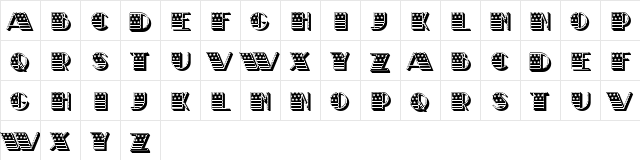
Funeral Regular
Design Context for Funeral Typeface
Funeral has an approachable, lighthearted character — its loose, expressive forms are well-suited to children's content, casual branding, and fun-first design.
Font Pairing: Pairs well with a rounded or humanist sans for body copy, maintaining the friendly tone without relying on Funeral to carry extended reading.
Pro Tip: Avoid using Funeral for long passages of text — it works best for headlines, labels, and short calls to action.